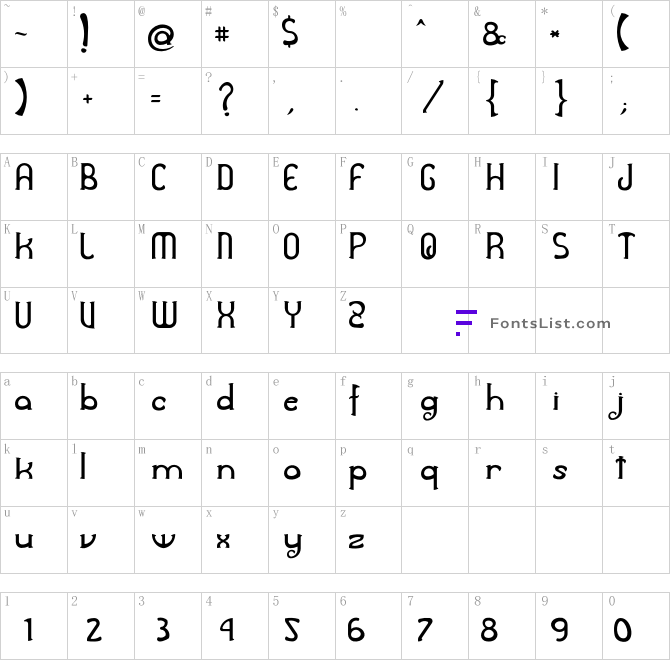
- Font Name:Awelita
Awelita.otf is a very beautiful artistic font, Awelita.otf is widely used in the design and printing of various books and pictures,Awelita.otf has a strong visual impact,Awelita.otf is a commonly used font in newspapers, magazines and books, and is used in posters, e-commerce Poster design, store design, logo design, font design and other fields.Awelita.